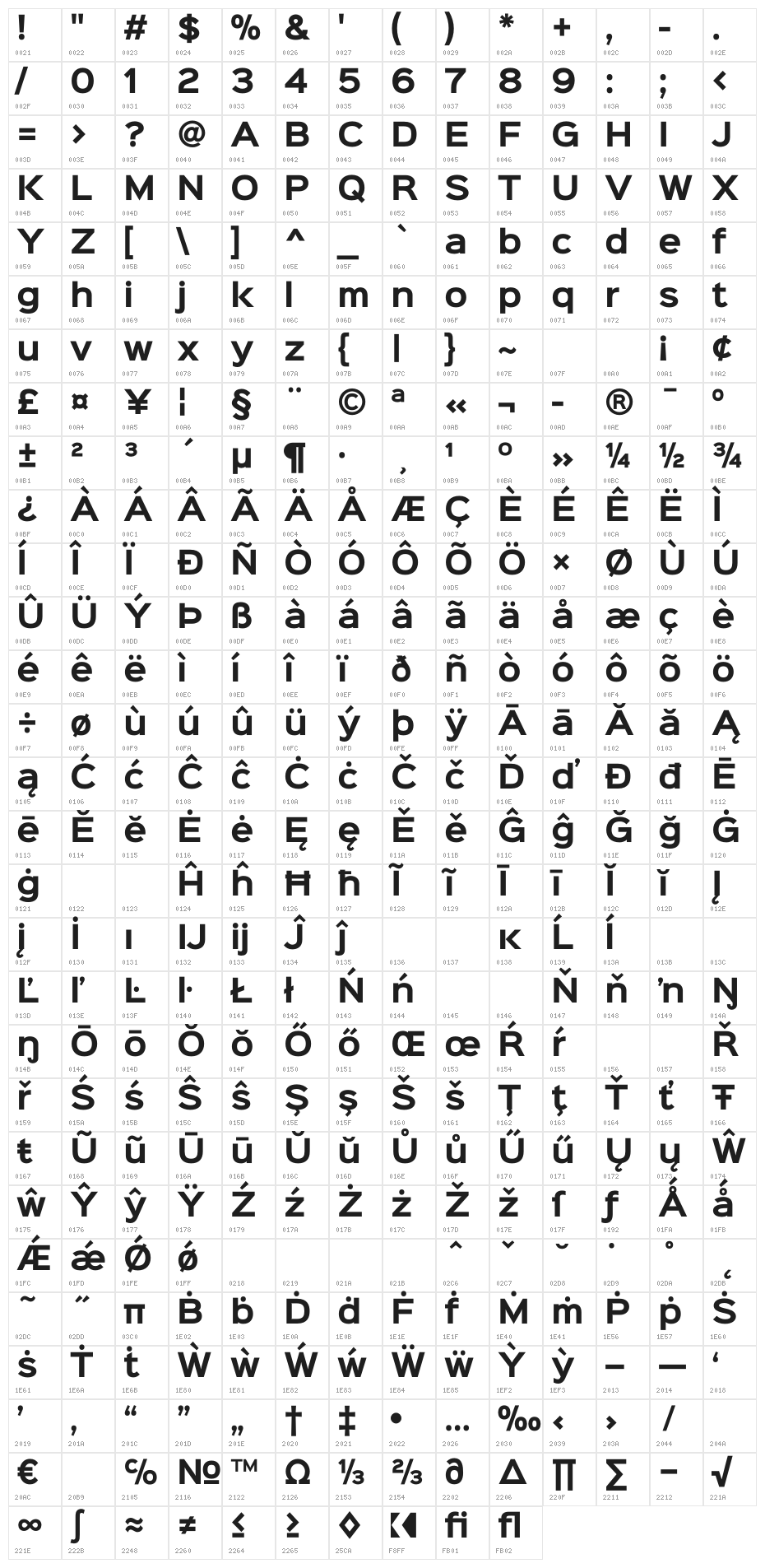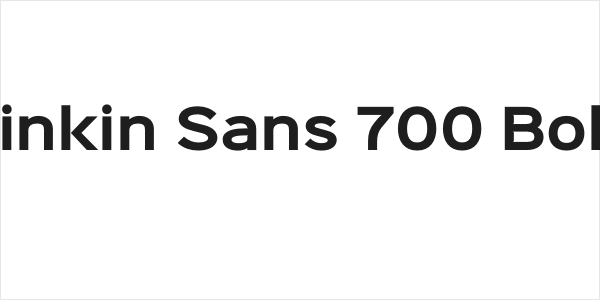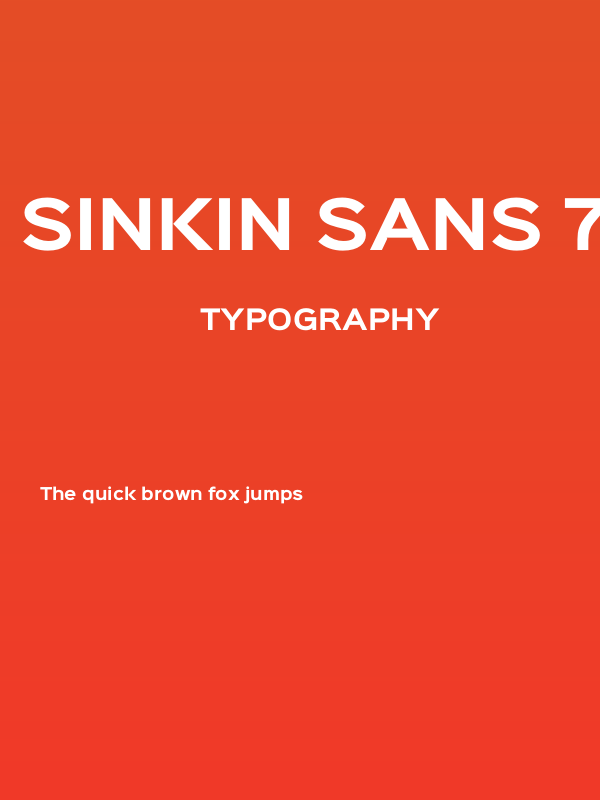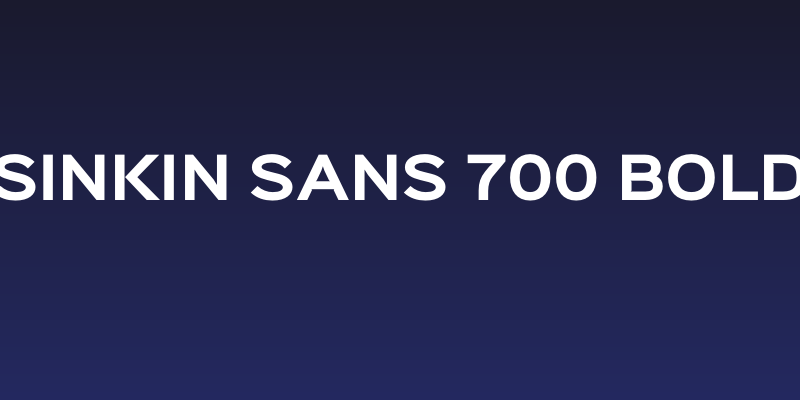
Sinkin Sans 700 Bold Font
Sinkin Sans 700 Bold Description
This typeface exhibits a clean and modern sans-serif style, characterized by its bold weight and uniform stroke thickness. The characters are well-proportioned with a consistent height, providing a balanced and harmonious appearance. The uppercase letters are strong and assertive, while the lowercase letters maintain readability with open counters and rounded forms. Numerals are clear and distinct, making them suitable for various applications. The special characters are straightforward, aligning with the overall minimalist aesthetic of the typeface.
| Use Case | Headlines, Logos, Web design |
| Proposed Projects | Ideal for branding, advertising, web design, and editorial projects where clarity and impact are essential. |